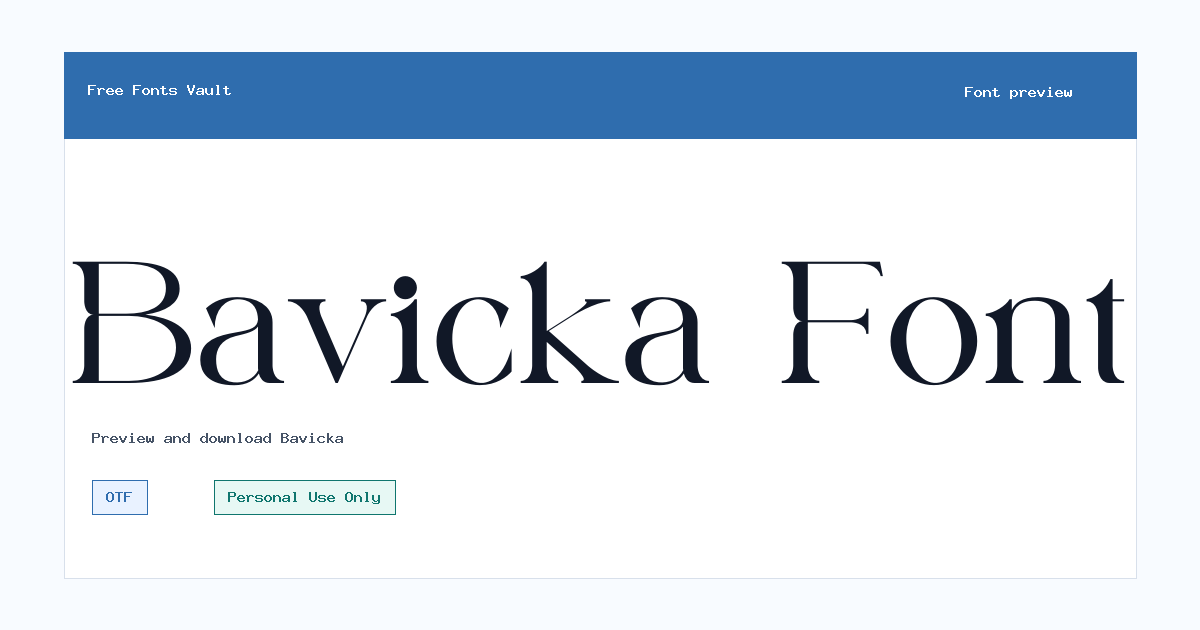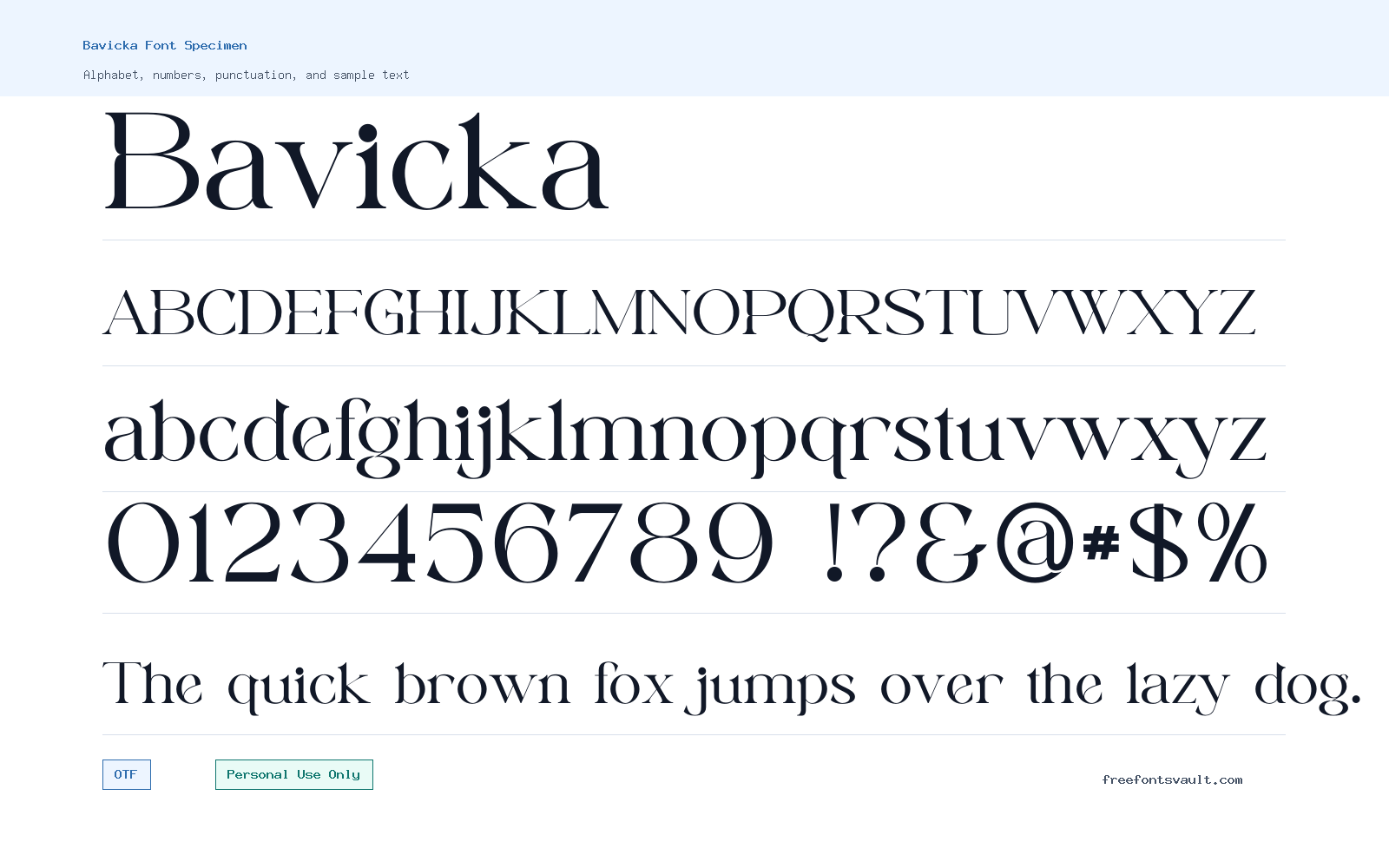
Bavicka
- Designer Biham Santoso
Bavicka font.
Bavicka is a serif font family with a regular OTF file, made for visitors who want to test a clean display style in headings, short phrases, and preview text before download.
About Bavicka Font
Bavicka is presented as a serif font by Biham Santoso. The download package listed for this family contains one regular style in OTF format, with normal styling and a 400 weight. That makes it simple to try: install the file, choose Bavicka in your design app, and start by testing the exact words you plan to use. Because only one style is listed, it is best treated as a focused type choice rather than a large multi-weight family.
Use the preview box to check how Bavicka handles your own text, especially capital letters, punctuation, numbers, and mixed-case words. Serif fonts can look elegant in larger sizes, but spacing and readability still depend on the word length, layout, and background contrast. Try it in a title, a short brand-style phrase, and a small paragraph sample so you can see where it feels clear and where another text font may be needed.
- Serif family style suitable for testing in titles, nameplates, and short display text.
- Single-style setup that is easy to preview, compare, and pair with a simpler reading font.
- Headlines, poster text, invitations, and decorative title settings where a serif look fits the design.
- Logo drafts, branding mockups, social graphics, and mood boards for personal projects.
- Short quotes, labels, packaging concepts, and presentation covers that need a more formal type tone.